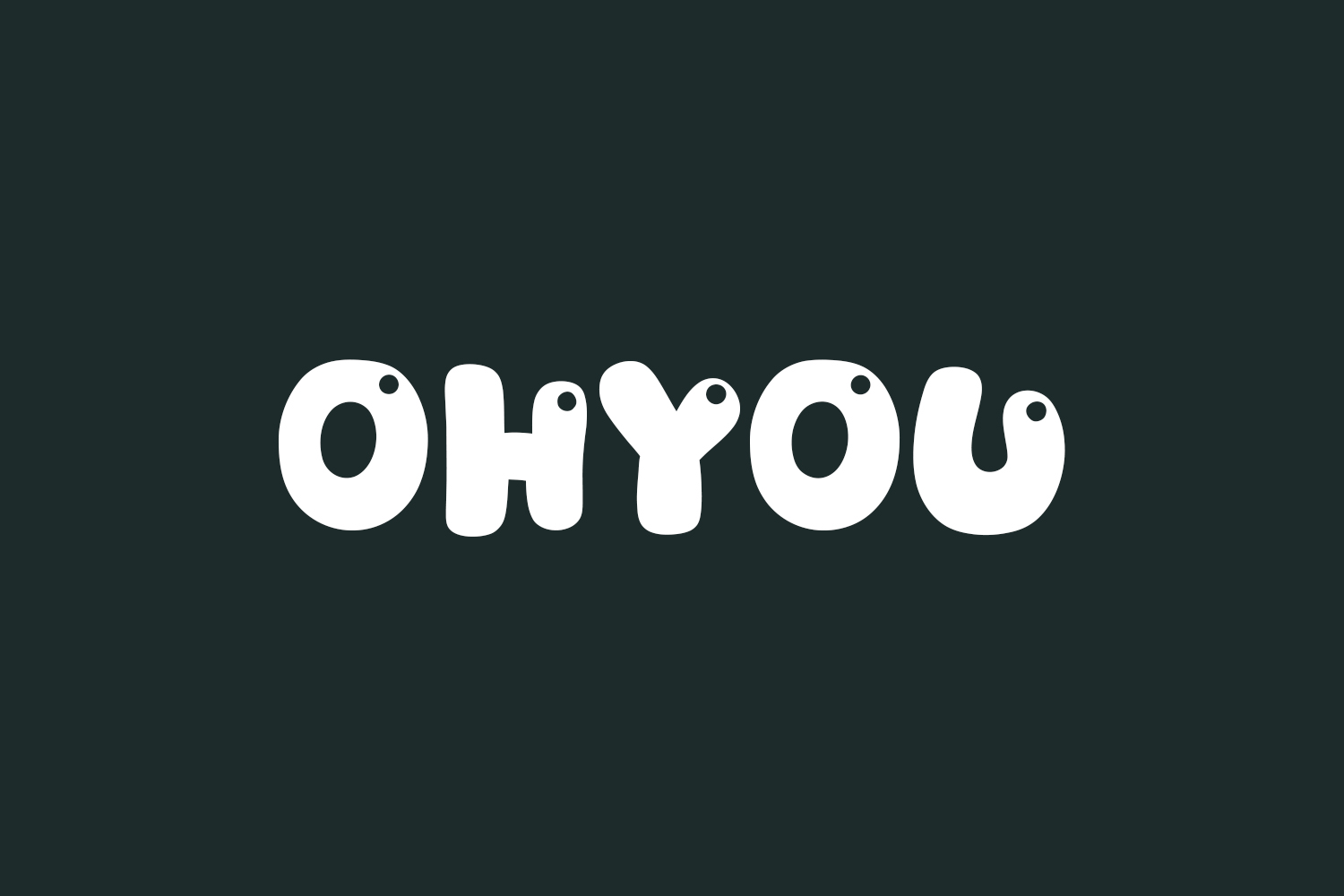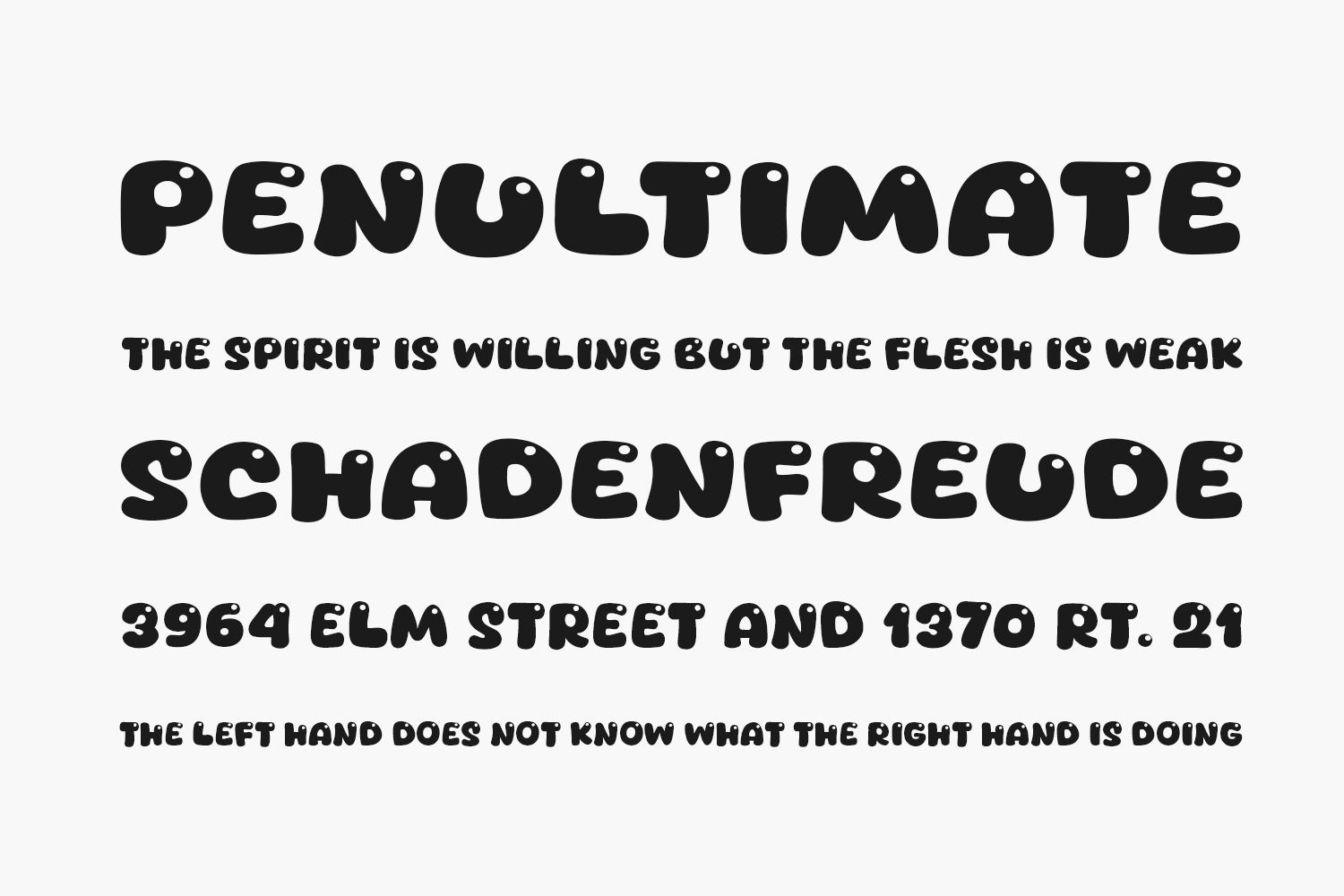
Discover Ohyou Free Font, a contemporary and stylish display font tailored for posters, logos, magazines, book covers, banners, and more! Unlock its creative potential and craft captivating designs that stand out effortlessly. With its versatility, Ohyou seamlessly integrates into a wide range of projects, enhancing your creative vision and leaving a lasting impression. Elevate your designs with Ohyou today. Download the font for free if you need it for personal or commercial use.